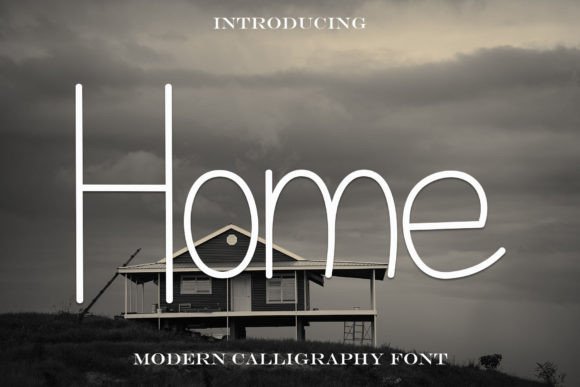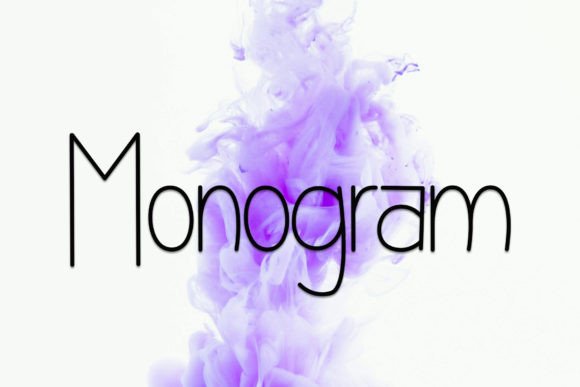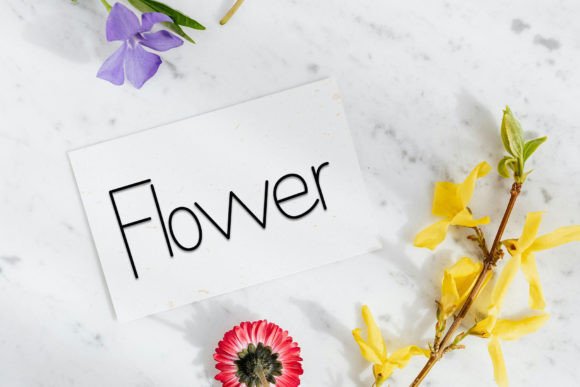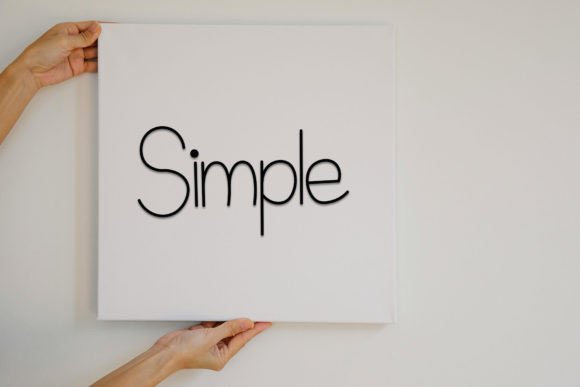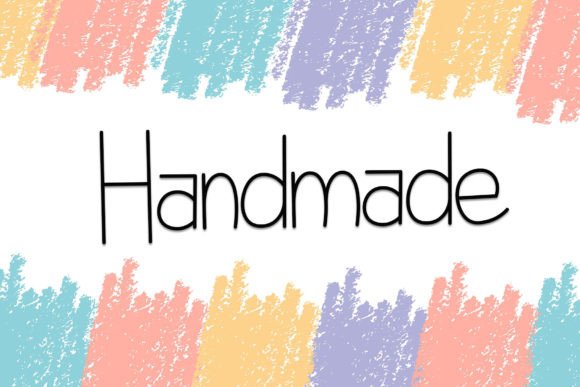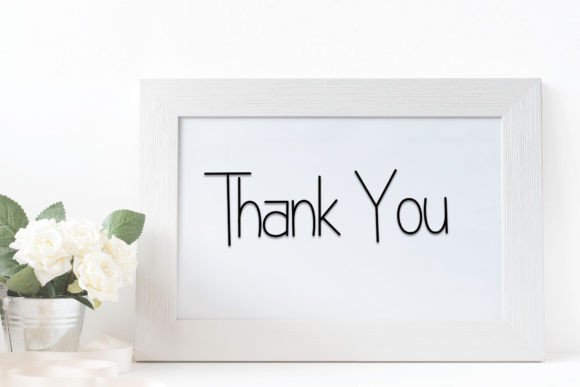
The Home Font is a stunning handwritten font that exudes a sense of timeless elegance and sophistication. Inspired by classic calligraphy, it’s the perfect addition to any design project that needs a touch of class and whimsy. Whether you’re designing a logo, a wedding invitation, or a brand identity, the Home Font is sure to elevate your work to the next level.
Key Features of Home Font
- Font Family: Home Font is a custom-designed font family that includes multiple weights and styles, making it suitable for various design applications.
- Character Count: The font family includes over 800 glyphs, covering a wide range of languages and characters.
- Unique Characteristics: Home Font features a unique blend of modern and traditional design elements, making it a standout choice for designers seeking a distinctive look.
Home Font Review
Overall, I’m quite impressed with Home Font. Here’s what I think works well: ✨
- It’s clean and simple, making it perfect for a variety of design projects.
- The font is highly legible, even at smaller sizes.
- It’s suitable for both digital and print media.
- It’s a great choice for body text, headings, and even titles.
However, I did encounter a few limitations: ⚠️
- The font lacks personality and uniqueness, which might make it blend in with other fonts.
- It’s not ideal for titles or headings that require a lot of emphasis.
- The font doesn’t have a lot of character variations, which might make it less interesting for some designers.
Overall, I’d say Home Font is a solid choice for designers who want a clean, simple font that’s easy to read. While it might not be the most exciting font out there, it gets the job done. If you’re looking for a font that’s versatile and easy to use, Home Font is definitely worth considering.
Home Font is commonly used in:
– Logo design
– Branding materials
– Website design
– Print materials